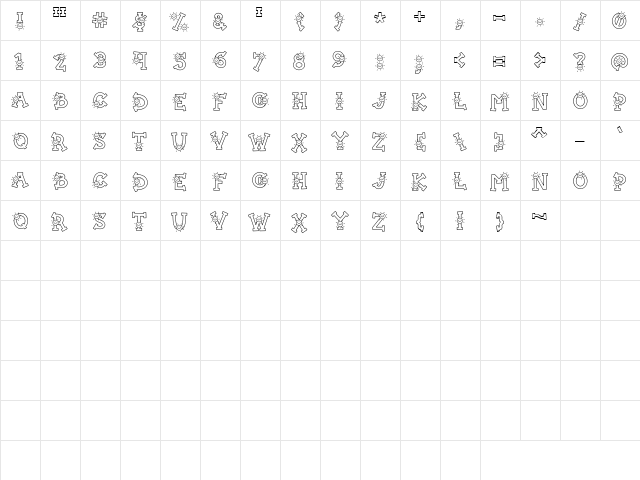
LD Happy Sun Regular
Design Context for LD Happy Sun Typeface
LD Happy Sun is a composed and adaptable typeface that performs quietly and consistently across a wide range of design contexts.